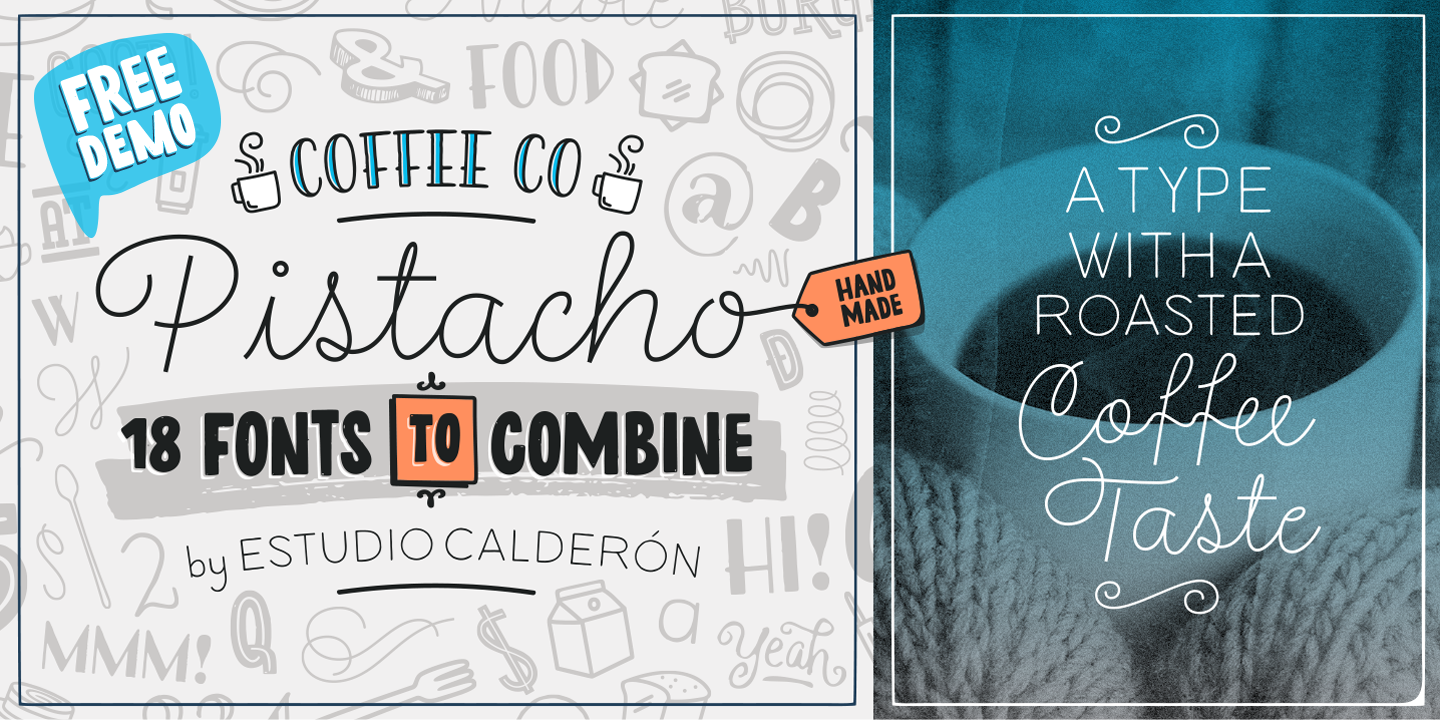
The Pistacho Font Free Download is an incredibly charming and delightfully organic typeface, making it an excellent choice for designs that aim to convey warmth, natural goodness, and a whimsical, handcrafted feel. This inviting font is perfectly suited for organic food branding, boutique cafe menus, farmers' market signage, children's book illustrations, eco-friendly product packaging, and creative social media graphics. Imagine it adding a wholesome touch to a healthy snack label, providing a friendly and approachable feel for a local juice bar, or giving a unique, wholesome vibe to a sustainable lifestyle blog. Its soft, rounded forms and distinctive, often subtly textured appearance ensure your message is delivered with warmth and an undeniable sense of genuine appeal.
What makes Pistacho Font truly exciting is its ability to instantly infuse designs with a feeling of gentle comfort and heartfelt sincerity. It's not just a basic display font; it embodies an organic softness and a friendly character that makes it incredibly appealing. The slightly playful forms and smooth curves, sometimes with a subtle hand-drawn quality, give it an authentic, approachable feel, as if lovingly crafted. Designers will appreciate how easily it brings an unpretentious, comforting touch to any project, making it ideal for designs that need to feel friendly, engaging, and visually inspiring with a touch of tender elegance.
The Pistacho Font family typically offers a range of weights and styles to provide maximum flexibility for designers, allowing for various applications from headlines to body text. You can often find variations such as Light, Regular, Medium, and Bold, each providing a different level of visual impact for creating strong typographical hierarchies. Some versions might also include Italic styles, further enhancing its utility for emphasis and stylistic variation. These comprehensive options ensure that the Pistacho Font Free Download empowers designers to create truly charming, comfortable, and visually captivating designs that resonate with warmth and a sense of inviting simplicity.